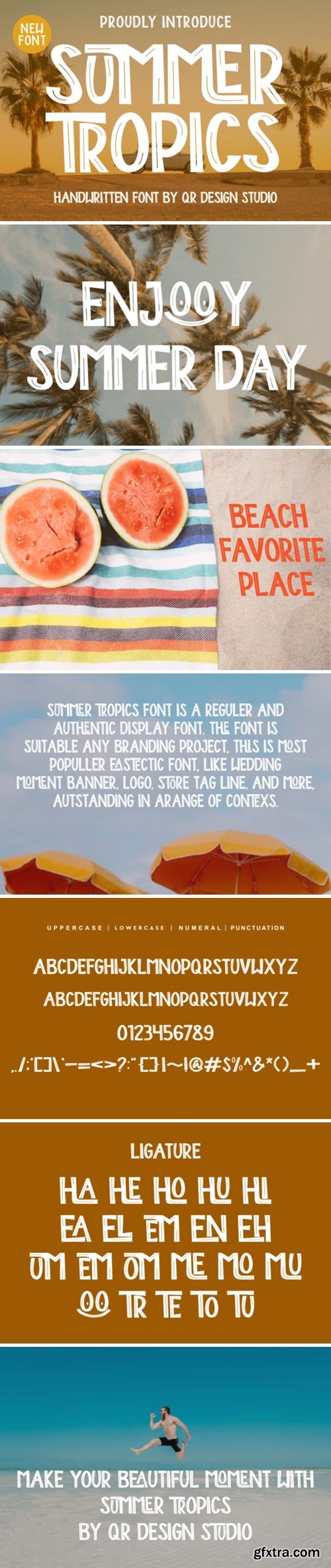
夏季热带字体
Summer Tropics is a bold and authentic display font. The font is suitable for any branding project like logo, summer, greeting card, and many more. Outstanding in a wide range of contexts.